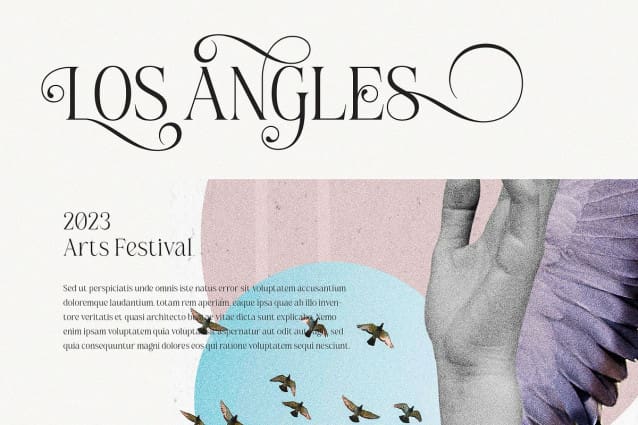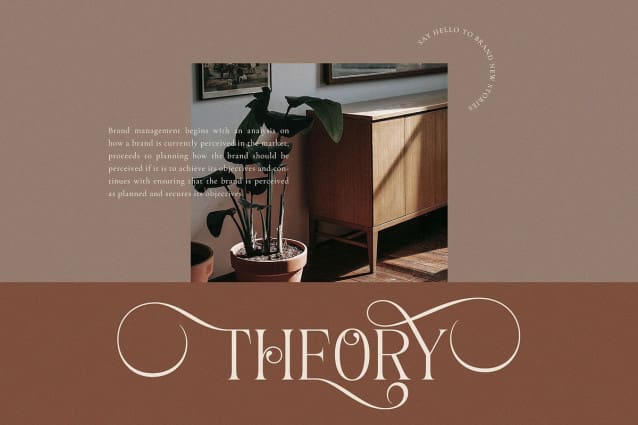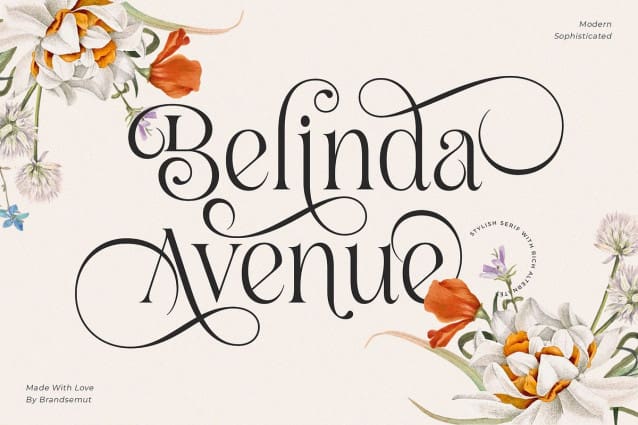
Belinda Avenue Font
Belinda Avenue Font – Stylish Classic Serif. This is a classic and stylish serif typeface with rich alternates, best used for displaying headlines, logos, branding, magazines, product packaging and invitations. BelindaAvenue equipped with Ligature and many Alternates and come with clean lines and smooth curves give any project an extra touch of class.